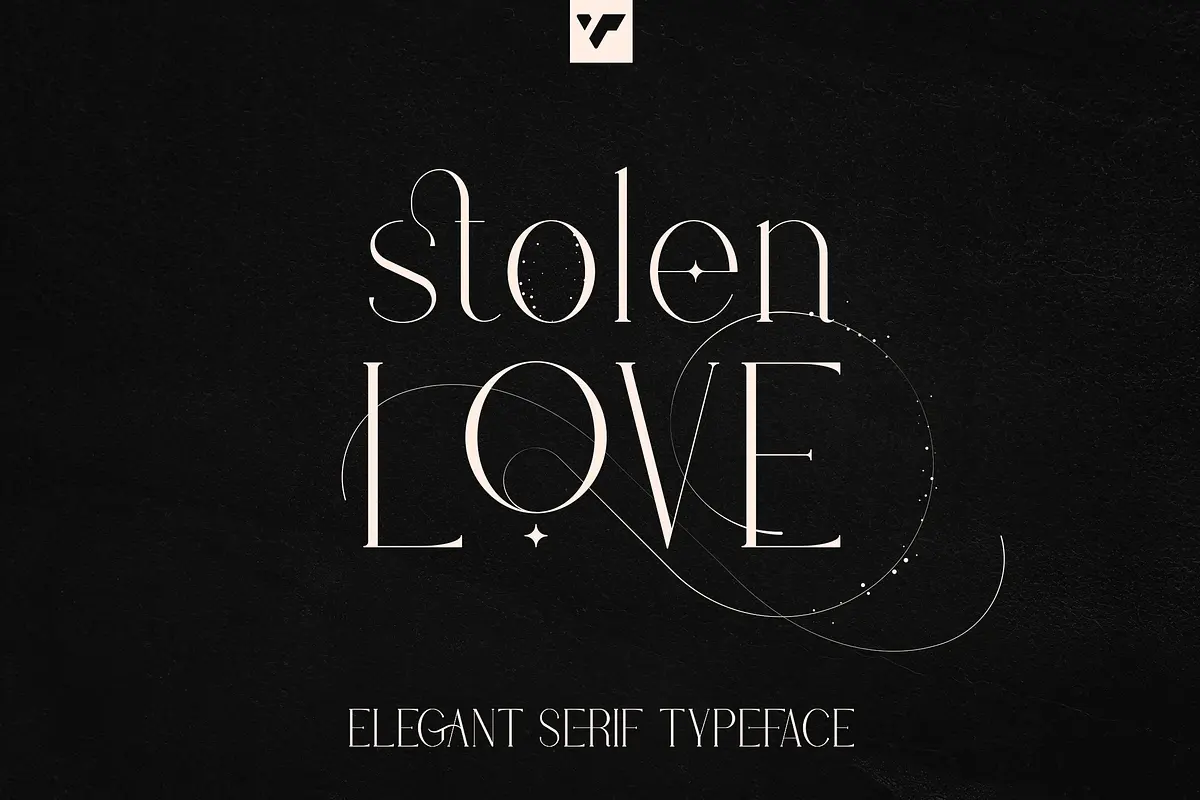
Please note, you must purchase this font for commercial use. However, you can easily download Stolen Love - Elegant Serif Typeface Free Download for personal use and testing purposes. Stolen Love - Elegant Serif Typeface is a sophisticated and timeless font designed to bring a sense of luxury and refinement to your projects. Perfect for high-end branding, editorial design, logos, and invitations, this elegant serif font combines modern design with classic style. Its sleek lines and graceful serifs make it ideal for creating chic, professional designs that need to stand out. Whether you're designing for a premium brand, a wedding, or an editorial layout, Stolen Love - Elegant Serif Typeface Free Download will add a touch of class to your typography. Download Stolen Love - Elegant Serif Typeface Free Download today and explore its potential before opting for a commercial license.